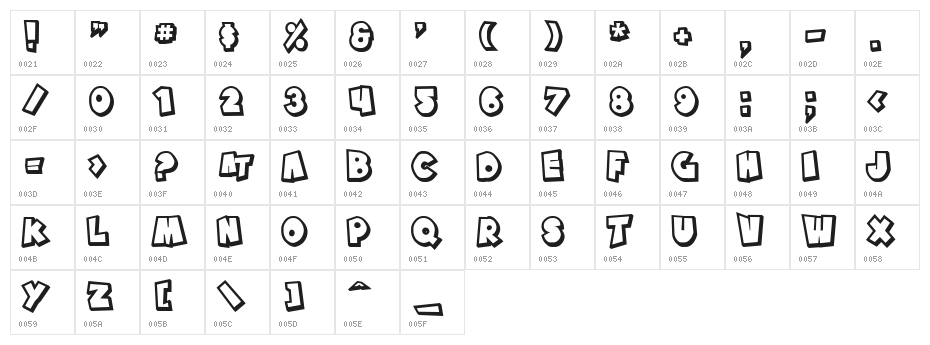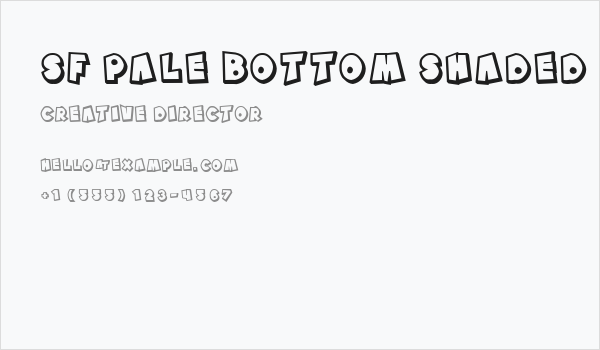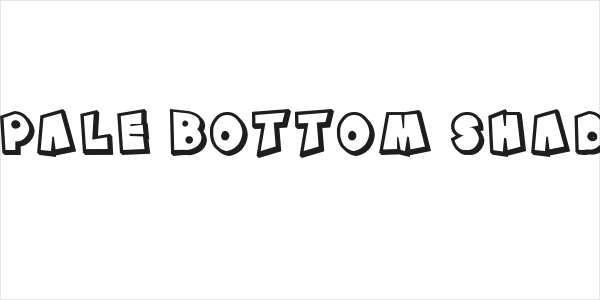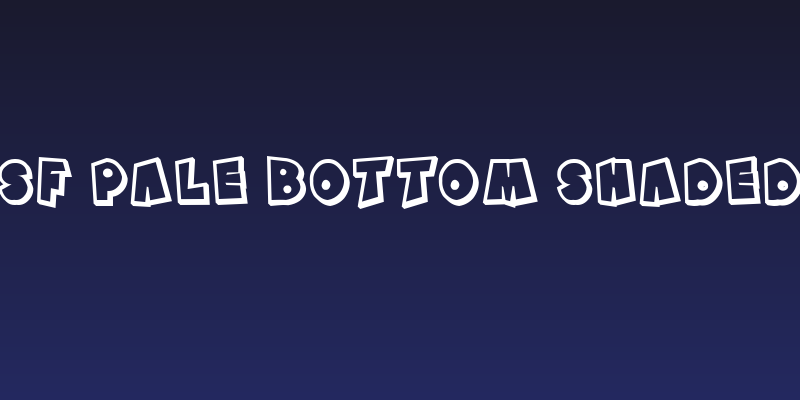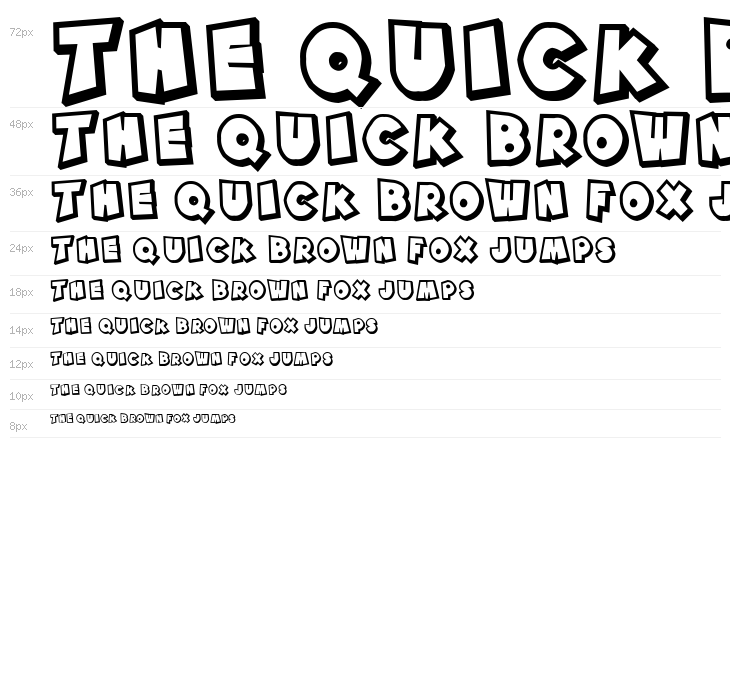
SF Pale Bottom Shaded Font
SF Pale Bottom Shaded Description
This playful and bold font features a unique design with a shaded bottom, giving each character a three-dimensional appearance. The letters are uppercase and lowercase with a consistent, thick stroke that enhances readability while maintaining a fun, cartoonish style. The numbers and special characters follow the same design principles, ensuring uniformity across all glyphs. The font's distinct shading adds depth and visual interest, making it ideal for eye-catching designs.
| Overall Style | Playful, Cartoonish |
| Proposed Projects | Perfect for children's books, comic strips, playful branding, and eye-catching posters. |